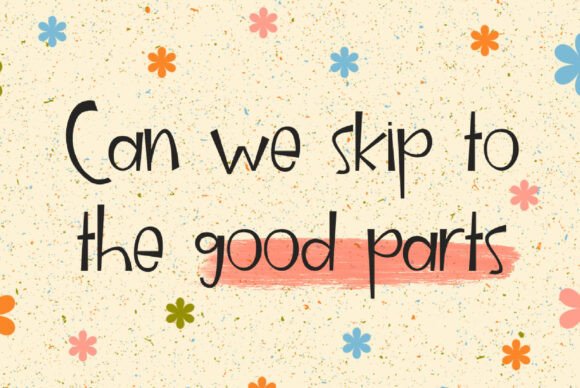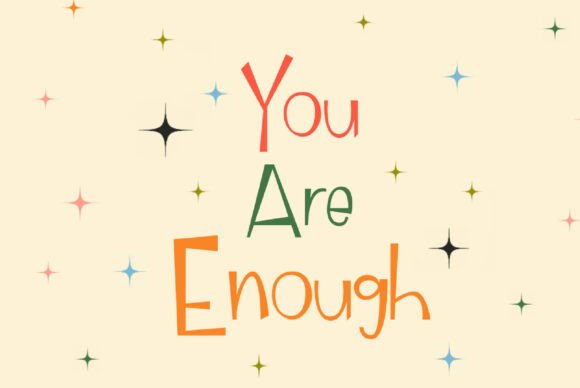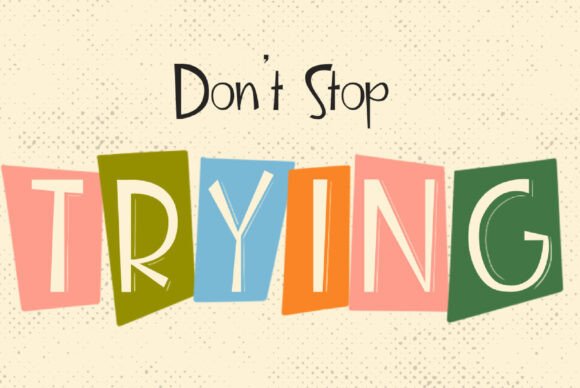
Introduction to Kefotix Font
Have you ever sat down with a blank page, a pencil, and a burst of creativity? The blank page stares back at you, and suddenly, a character starts to form, a story unfolds, and a world comes alive. This is the magic of creating something from scratch, and it’s exactly what the Kefotix Font embodies.
As a designer, you’re always on the lookout for the perfect font to elevate your project. That’s where Kefotix Font comes in – a charming and lively font that captures the essence of children’s handwriting. With its playful curves and uneven forms, this font adds a delightful, youthful touch to any design. Whether you’re working on kids’ party invitations, storybooks, or educational materials, Kefotix Font brings a sense of fun and imagination to your projects.
Key Features of Kefotix Font
- Its unique characteristics, such as bold lines and creative typography, set it apart from other fonts in its category.
Honest Review: Kefotix Font
One of the standout features of the Kefotix Font is its high quality and versatility. It’s perfect for creating eye-catching headings, titles, and even logos. The font’s design is clean and modern, making it an excellent choice for a variety of creative projects.
Some of the things that work well with the Kefotix Font include: ✨ High-quality design ✨ Versatile and modern style ✨ Transparent background options for seamless integration with other design elements
However, I did encounter a few limitations while working with the Kefotix Font, including: ⚠️ Limited font sizes and weights ⚠️ Not ideal for large blocks of text ⚠️ Some compatibility issues with older software
Overall, I’m impressed with the Kefotix Font and would definitely recommend it as a design resource for any creative project. Its high quality and versatility make it a valuable addition to any designer’s toolkit.
Tips for Getting the Most Out of Kefotix Font
For the best results, use the Kefotix Font with a transparent background to create a clean and modern design. You can also experiment with different font sizes and styles to add visual interest to your design.
Common Use Cases for Kefotix Font
The Kefotix Font is a versatile design resource that can be used for a variety of creative projects, including logos, business cards, and marketing materials. Its high-quality design makes it a great choice for both personal and professional use.